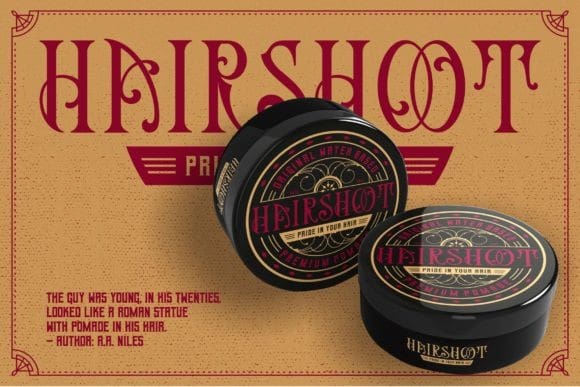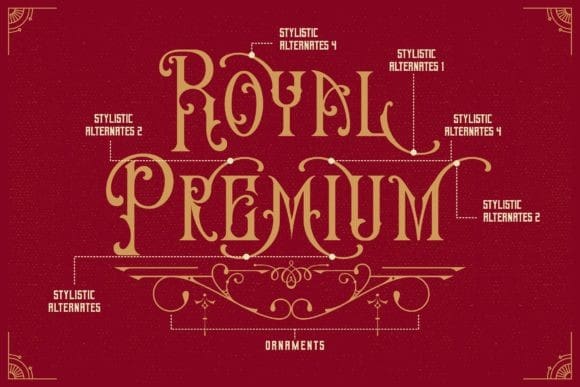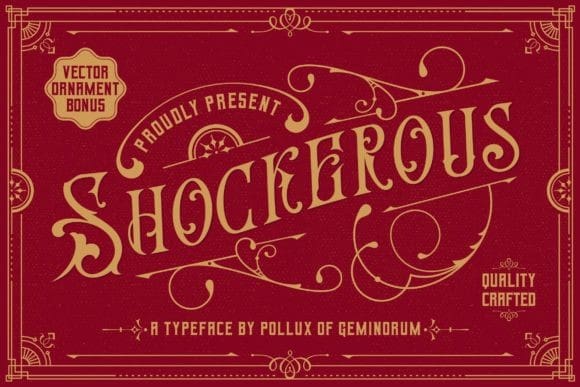
Shockerous Vintage Font
Shockerous Vintage Font, Imposing and powerful. Add this display font to your digital toolbox to create your own vintage-style design. Whether you create logos, apps, labels, apparel, book covers, posters, or other design types, you can utilize Shockerous to inject a remarkable retro vibe into your work. Most of all, this font download comes with a bonus vector ornament that benefits you in producing more impressive designs.